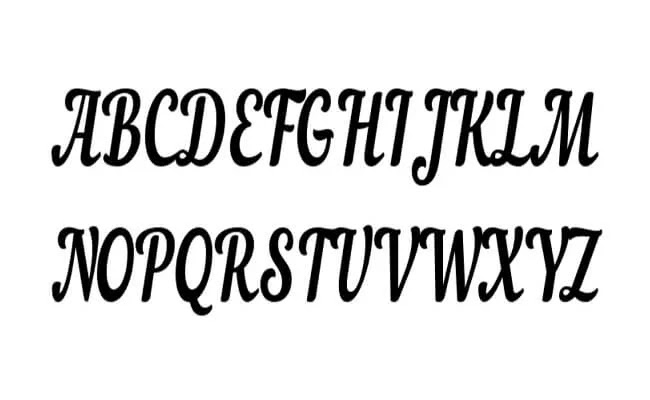
Top 10 Modern Font Families
The Modern Fonts are a very important part of type industries. Because in the current times, there are a lot of designs need for modern fonts. Because they will provide the best and top quality layouts. which are definitely unique from the others.
Caladea Font Family
Caladea Font is an exquisite serif typeface by Andres Torre and Carolina Giovagnoli. Accessible in four one of a kind styles and exceptional stamps also. Good for the two windows and macintosh.
This cutting edge textual style family continues a perfect surface. Also, it makes a point to convey high-grade neatness and preeminent solidness. According to its assortment of fundamental loads, Caladea is perfect for a superior text style blending.
Ordinary, Bold, Italic and Bold Italic styles are incorporated with this free textual style. Cambria Font Family Download is a comparable transitional serif typeface great for a superior printed coordinate. Additionally included by Google text styles.
Examine the character maps pictures we secure in here for all styles. Counting to get the see about how your plan will be going to look like in the wake of utilizing caladea sans serif typeface.
Nautilus Pompilius Font Family
Nautilus Pompilius Font is a slick content typeface. Punk You Brands took the charge for structuring and discharging it. It arrives in a solitary ordinary style including mind blowing intelligibility and sharp attributes.
This free text style family has 542 glyphs. What's more, every single glyph including features its own remarkable adaptable appearance. View the text style map pictures to think further about its surface.
Planners group for nautilus pompilius textual style apply colossal worry of keeping it rich. Yet, with a basic piece. Having a uniform pattern and related characters it will be the best surface without a doubt.
According to its tremendous dialects backing and keen impressions. Huge numbers of the visual fashioners are utilizing it to shocks their crowds and making the unrest in their structures orders. Presently the ball is in your court.
Aesthetic Font Family
Aesthetic Font Family is a vintage gothic typeface. Figuree Studio took the charge for planning and discharging it just because. It accompanies sharp highlights and huge dialects support. Perfect for each feature or title show plan activities.
As you can review in the character map pictures we attach in here. This exquisite textual style includes high-grade clarity even in the huge showcase also. Numerous fashioners are looking for this typeface and others are utilizing it.
Signika Font Family
Signika Font is a sans serif with a delicate individual, produced for wayfinding, signage, and other media in which clearness of data is required. This staggering serif typeface includes an extraordinary and rich surface.
That is planned by the method for Anna Giedrys. Anna is a clothier with numerous hobbies—she favors textual styles and photos when working, and model as an invited interruption.
She planned Signika, a sort hover of family members for wayfinding, and worked together on the open-supply kind families Yrsa and Rasa, which help the Latin and Gujarati contents. He furnishes any content with a quiet and clear inclination.
Croissant Font Family
Croissant Font Family is a retro text style that got acclaim in view of its bubbly letters. Mr Alan Carr is known as the essential planner of this textual style since he discharges it just because.
Presently it's nearly been in the market for quite a while however his interest is still on the pinnacle. See with your own eyes since you are here to download this magnificent textual style.
Its coarse words where current touch is clear pulls in many individuals because of the sleek structures. Being so thick and thin, such a structure is probably going to be found in the market.
What's more, we are fortunate who has gotten a blessing right now. In this way, that the ideal time to make those plans that nobody has ever made previously.
Gruppo Font Family
Gruppo Font Family is a presentation typeface that tells the truth and clear surface. A notable textual style fashioner Mr Vernon Adams has taken the charge for structuring it and discharging it just because.
The entire text style family has included a cutting edge surface alongside a suitable letter width. That makes it extraordinary decipherability for long content just as short messages.
The planner of this stunning typeface took mind blowing thought for passing on an amazing printed appearance. Numerous creators in the field are using it for fulfilling their customers.